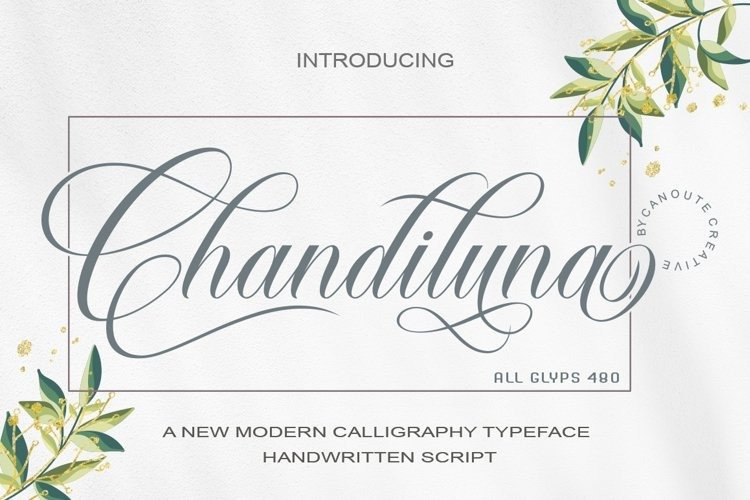
Chandiluna Font
Chandiluna Calligraphy Font is a modern, handwritten, modern calligraphy font. The shape is modern and unique and the writing style is very natural. Can be used for various purposes. Such as title, signature, logo, wedding invitation, t-shirt, letterhead, nameplate, label, news, poster, badge etc.
Chandiluna displays stylish calligraphy alternate characters. Includes initial letters and terminals, alternatives, ligatures and multiple language support.